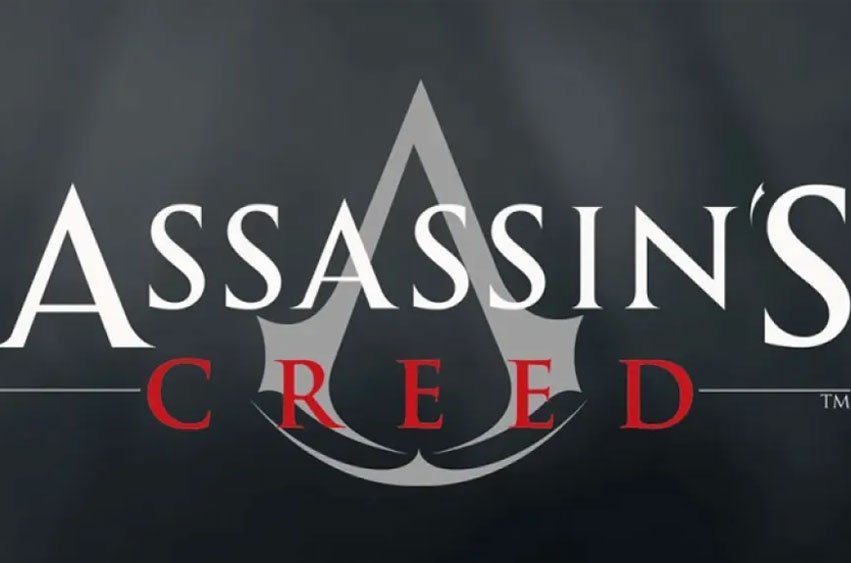
Assassin Font
Assassin Font is a lovely nostalgic upper and lower case typhography that can be effortlessly utilised in both upper and lower case places, exhibit, logo, and body text.
It’s a fantastic way to give an individual touch to your logo, branding, social media, posters, advertisement, invite card, product design, product packaging a ta narcotics. Enjoy!